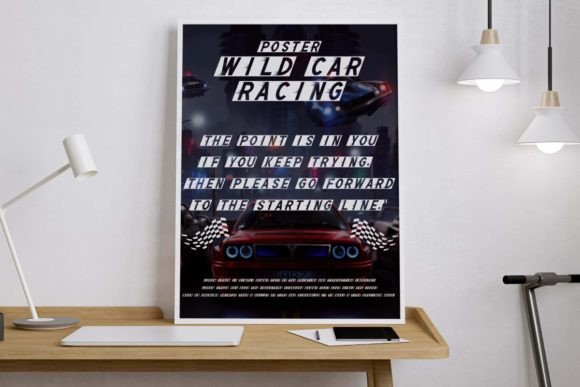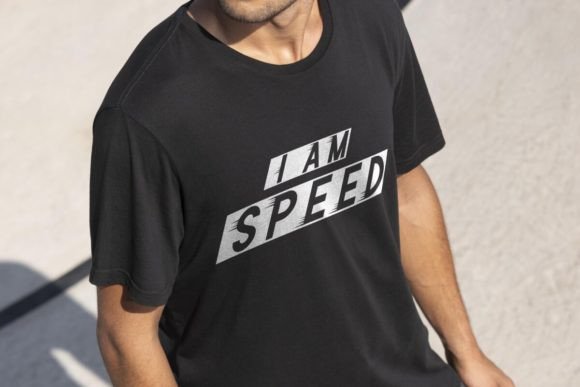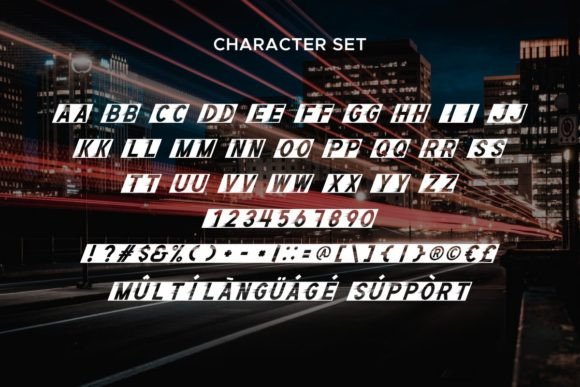
Introduction to Fast Speed Font
Imagine you’re a graphic designer, tasked with creating an eye-catching poster for an upcoming racing event. You’re scrolling through your favorite font libraries, searching for the perfect font to convey speed and energy. And then, you stumble upon it – the Fast Speed Font. This sporty, speedy decorative display font is designed to make a statement, and we’re excited to share its features with you.
The Fast Speed Font is more than just a font – it’s a design resource that can elevate your creative project to the next level. With its transparent background and high-quality design, this font is perfect for designers who want to add a touch of speed and style to their work. Whether you’re working on an advertisement for a sports brand or a festival event, the Fast Speed Font is an invaluable asset to have in your design arsenal.
Key Features of Fast Speed Font
- High-quality design for creative projects with a transparent background, allowing for seamless integration into various visual elements.
- Designed with precision and attention to detail, ensuring a high-resolution display that looks great at various sizes, from 12pt to 72pt.
- Perfect for designers, artists, and creatives working on projects that require a unique, high-quality font with a fast speed feel.
- Comes in a single weight, making it easy to use and integrate into various design elements, from headings to body text.
Honest Review: Fast Speed Font
As a designer, I’m always on the lookout for high-quality design resources to elevate my creative projects. The Fast Speed Font caught my attention, and I decided to give it a try. Here’s my honest review.
- ✨ High-quality design that’s perfect for modern and sleek projects.
- ✨ Suitable for both digital and print projects, thanks to its versatile design.
- ⚠️ Limited font styles and weights, which might not be ideal for designers who require more customization options.
- ⚠️ The font’s transparent background might not be suitable for all design projects, especially those with complex backgrounds.
Overall, I’m impressed with the Fast Speed Font’s design and versatility. It’s a great addition to any designer’s toolkit, especially for those working on modern and creative projects. While it has its limitations, I think it’s a solid choice for designers looking for a high-quality font at an affordable price.
The Fast Speed Font is ideal for use in presentations, social media graphics, and logos. It’s also a great design resource for creating a professional and modern look for your website or blog.